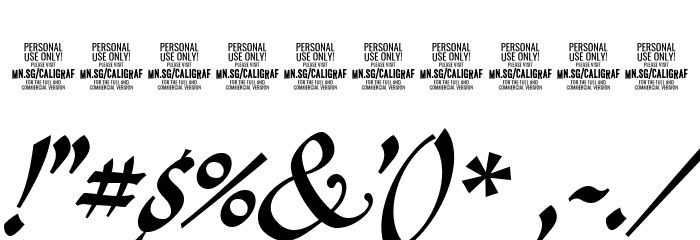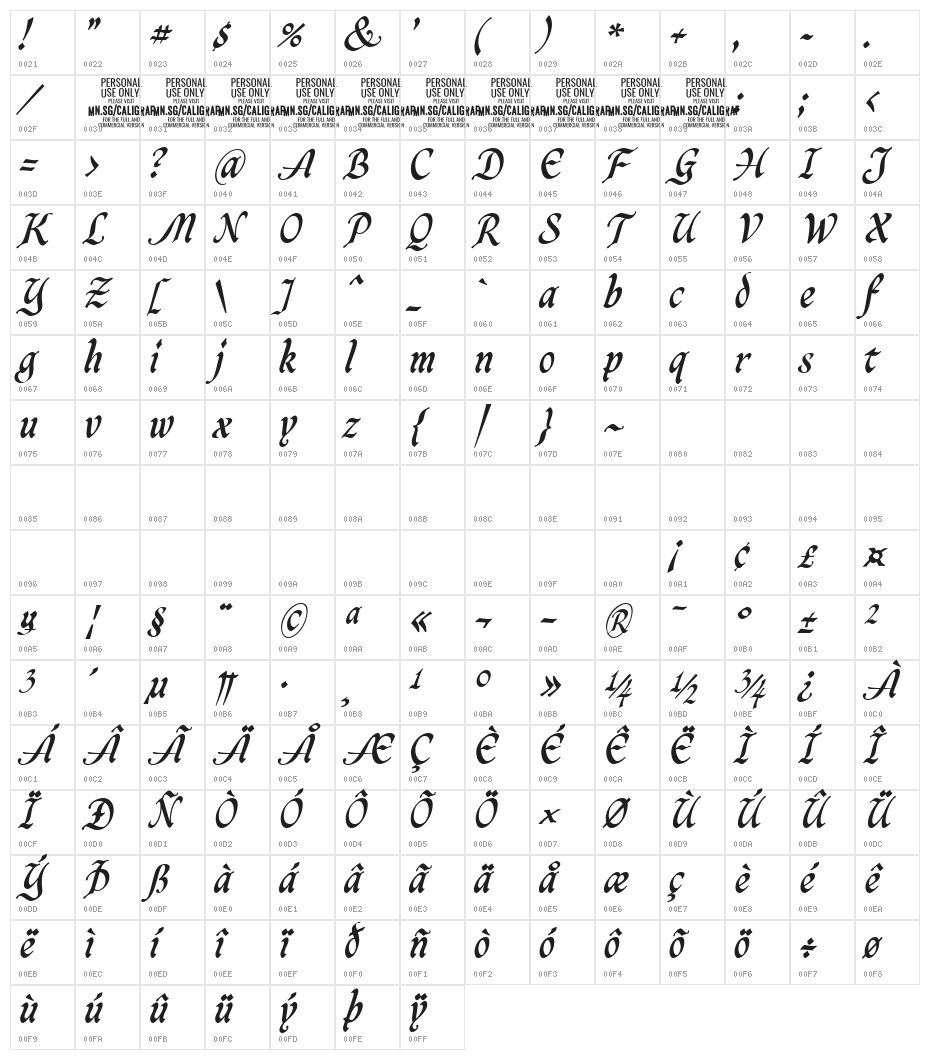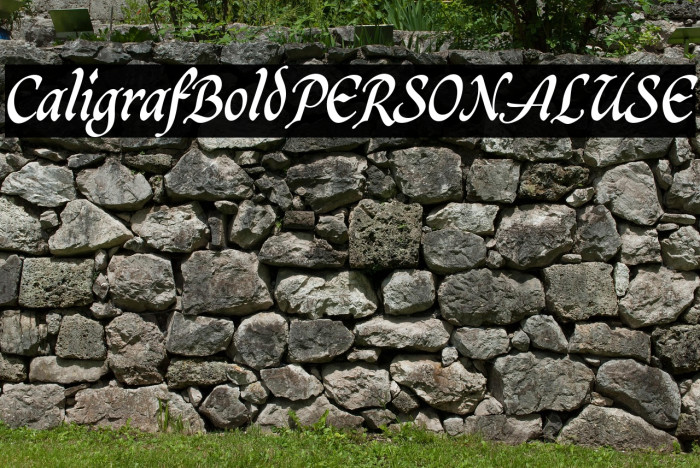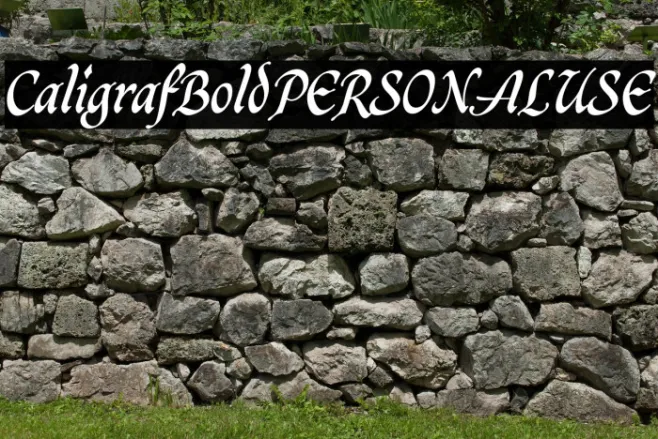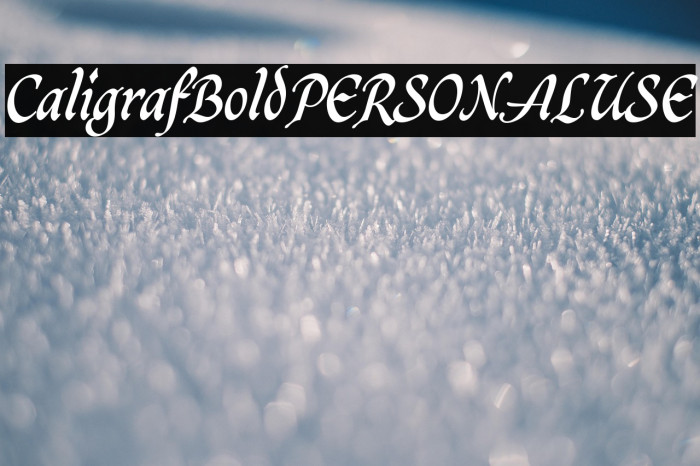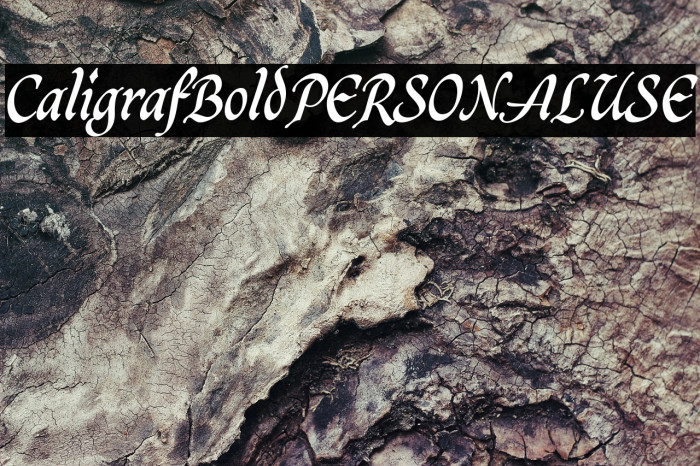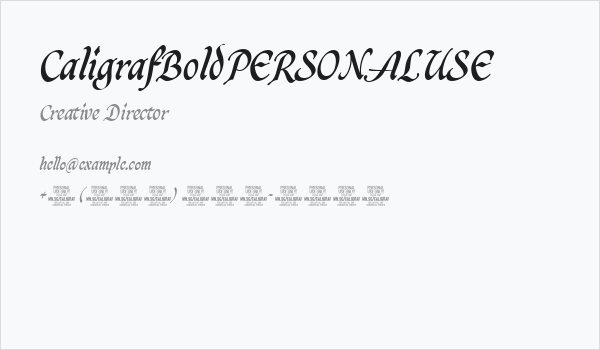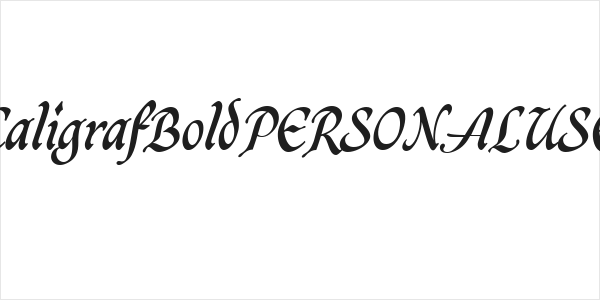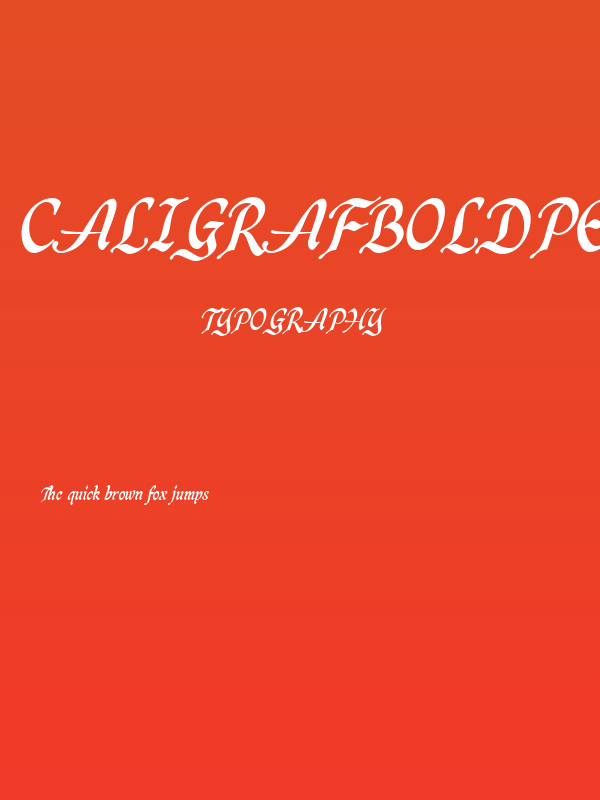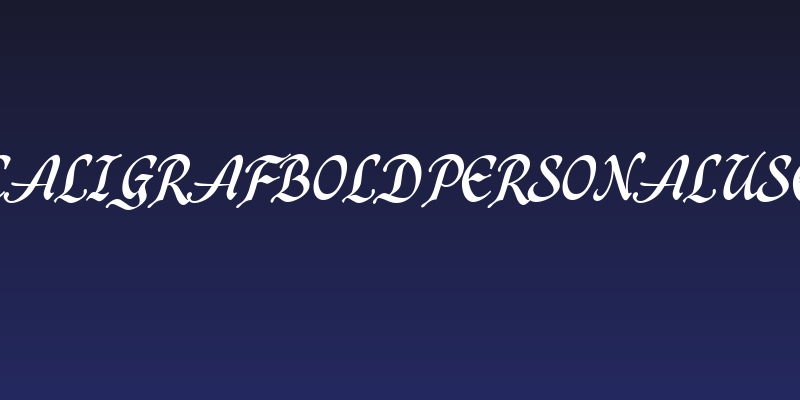
CaligrafBoldPERSONALUSE Font
CaligrafBoldPERSONALUSE Description
This font features a bold and dynamic script style, characterized by its flowing and elegant strokes. The uppercase letters exhibit a strong presence with their sweeping curves and sharp angles, while the lowercase letters maintain a consistent fluidity, enhancing readability. The numerals and special characters are crafted with the same attention to detail, ensuring a cohesive look across all glyphs. The overall design is reminiscent of traditional calligraphy, yet it incorporates modern elements that make it suitable for contemporary use.